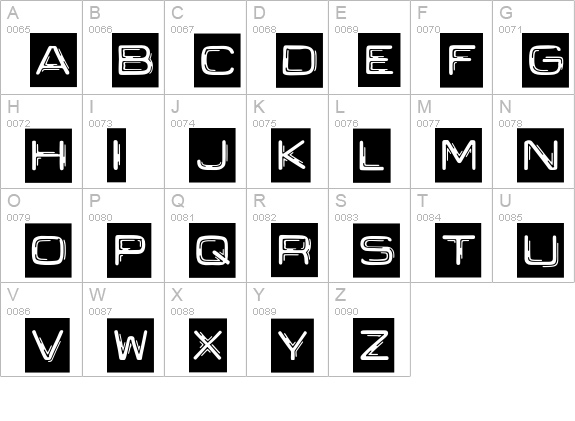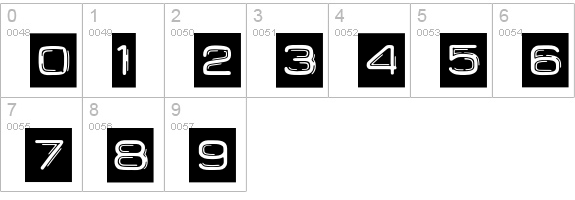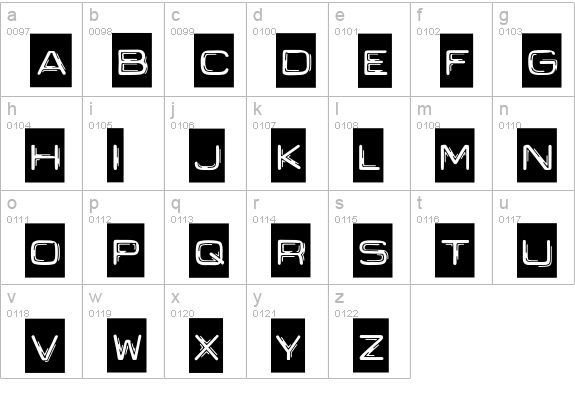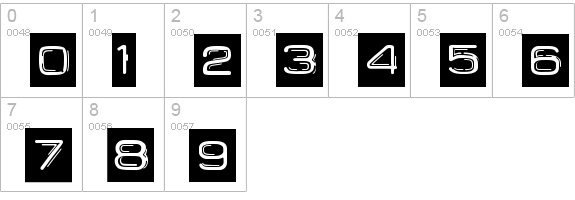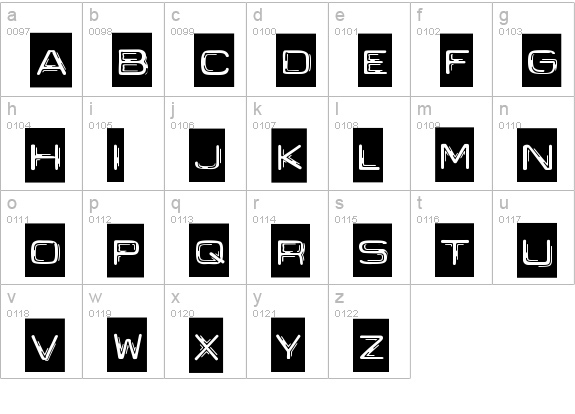
Recycle-AlternateReverse font is a stunning and unique typeface that is sure to catch the eye. With its distinctive design and modern appeal, it is perfect for a wide range of creative projects. This font features alternate characters and a reverse style, adding an extra layer of versatility and creativity to your designs. The Recycle-AlternateReverse font is not only visually appealing, but it also carries a message of sustainability and eco-consciousness. Its name is a nod to the importance of recycling and taking care of our planet. By using this font in your projects, you can subtly promote the values of recycling and environmental responsibility. One of the best things about the Recycle-AlternateReverse font is that it is free to download. You can easily access it at FontsMarket.com and start using it in your designs right away. Whether you're working on a logo, a poster, a website, or any other design project, this font will add a touch of uniqueness and style. The Recycle-AlternateReverse font is designed with great attention to detail, ensuring that every letter and character is visually appealing and well-crafted. Its clean lines and balanced proportions make it easy to read and legible at any size. With its modern and versatile design, the Recycle-AlternateReverse font is suitable for a wide range of projects, from branding and advertising to social media graphics and packaging design. It will instantly elevate your designs and make them stand out from the crowd. So why wait? Download the Recycle-AlternateReverse font for free at FontsMarket.com and start using it in your designs today. Let your creativity soar and make a positive impact with this environmentally conscious and visually stunning font.